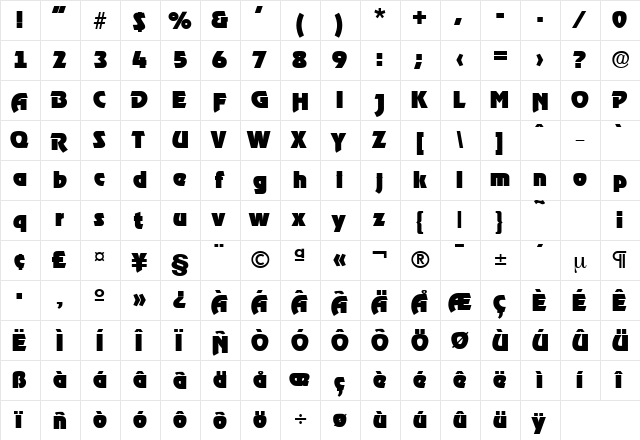
Ragtime-Serial-Black Regular
Design Context for Ragtime-Serial-Black Typeface
Ragtime-Serial-Black is a composed and adaptable typeface that performs quietly and consistently across a wide range of design contexts.
Pro Tip: Use Ragtime-Serial-Black in both headline and body roles to test its range before committing to a single application.